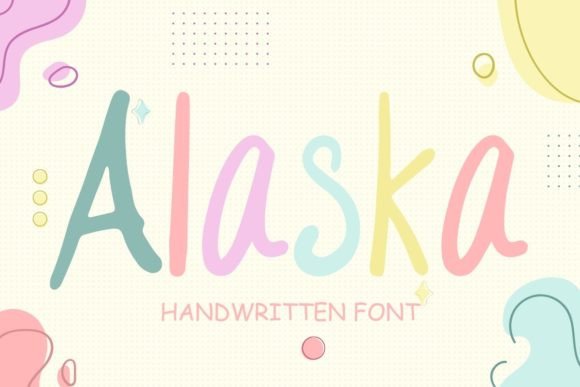
Step into the realm of elegance and make a statement with Alaska Font, the captivating script font that evokes the essence of timeless beauty. With its tall and slender silhouette, Alaska dances across your designs like a graceful ballerina, leaving a trail of sophistication and charm.
Unleash your creativity and let Alaska's sweeping strokes add a touch of magic to your SVG designs, mug creations, pottery masterpieces, and fashion statements. Picture your designs adorned with Alaska's delicate lines, captivating the hearts of those who lay eyes upon them.
Transport yourself to the world of handcrafted beauty, where Alaska's allure shines through in card making, wall art, and interior prints. Its versatility knows no bounds, making it the perfect companion for a myriad of creative projects.
Alaska is more than just a font; it's an experience that captivates and inspires. Its tall, slender strokes evoke a sense of wanderlust and adventure, taking you on a journey through the pages of your imagination. Let Alaska's enchanting curves and swirls ignite your passion for creation and leave an indelible mark on your artistic endeavors.
With Alaska Font, you'll discover a world of endless possibilities. Whether you're a seasoned designer or just starting your creative journey, Alaska will elevate your work to new heights, leaving a lasting impression that speaks volumes about your artistic prowess.